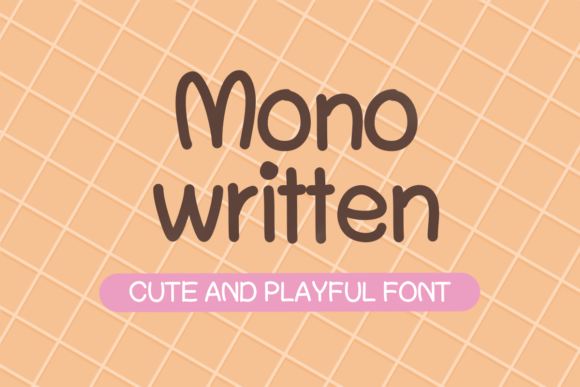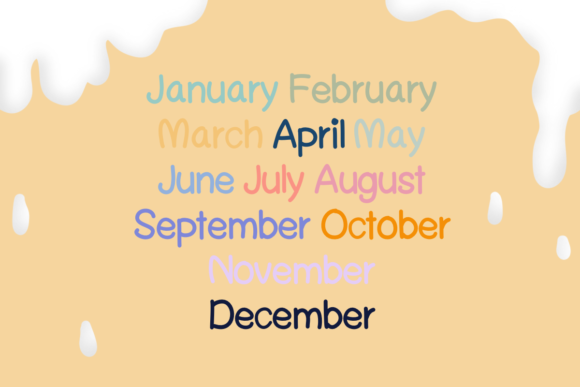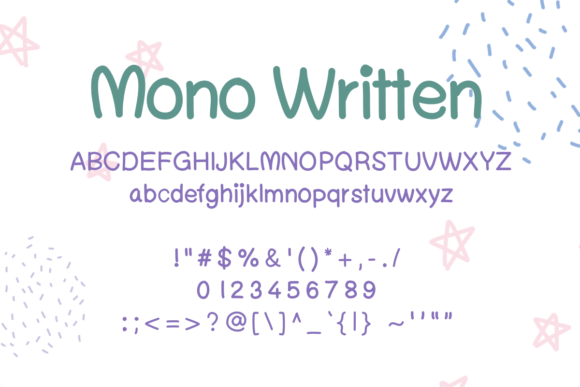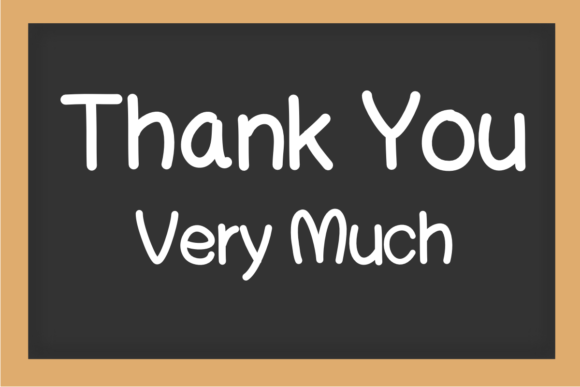
Mono Written Font
About Mono Written Font
Mono written is a cute and trendy handwritten font. Its playfulness and authenticity make this font the perfect choice for any children’s activity or school project. Friendly to use with shirt designs, websites, branding, children’s designs, blogs, planning, logos, invitations, and more!